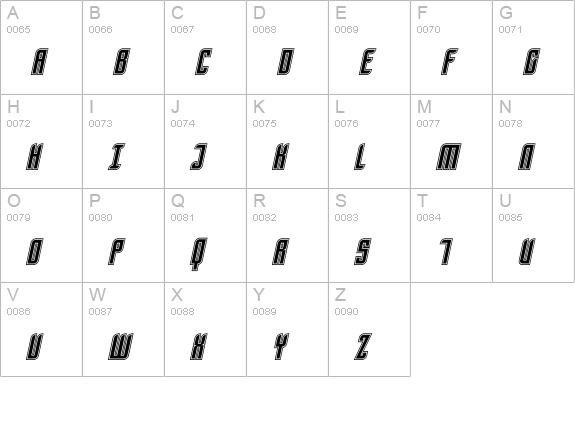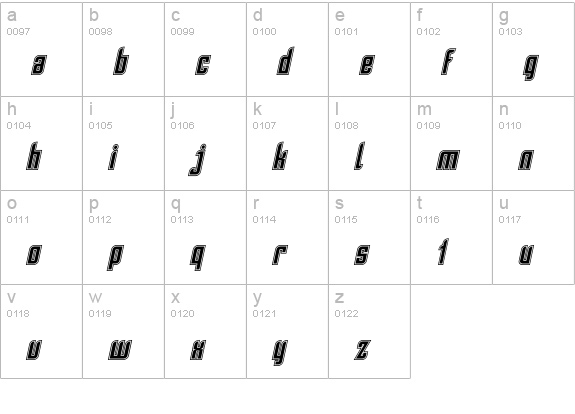
SF Piezolectric Inline Oblique Font Details
SF Piezolectric Inline Oblique is a distinctive, italic variant in the SF typeface family \xE2\x80\x94 well suited to design and typography projects.
SF Piezolectric Inline Oblique is a stunning and bold font that exudes a sense of modernity and sophistication. With its unique oblique style, this font adds a dynamic touch to any design project. The sharp angles and sleek lines of SF Piezolectric Inline Oblique make it perfect for creating eye-catching headlines, logos, and branding materials. This font is not only visually striking but also highly versatile. Its inline style creates a captivating visual effect that is perfect for adding depth and dimension to any text. Whether used in print or digital designs, SF Piezolectric Inline Oblique is guaranteed to grab attention and leave a lasting impression. One of the best features of SF Piezolectric Inline Oblique is that it is free to download at FontsMarket.com. This means that you can easily access this amazing font and incorporate it into your design projects without any hassle. Its availability for free ensures that you can enjoy the benefits of this font without any limitations. So, if you are looking for a bold and contemporary font that will make your designs stand out from the crowd, look no further than SF Piezolectric Inline Oblique. With its striking oblique style, versatility, and free availability, this font is a must-have for designers and creatives alike. Download SF Piezolectric Inline Oblique today and elevate your designs to new heights.